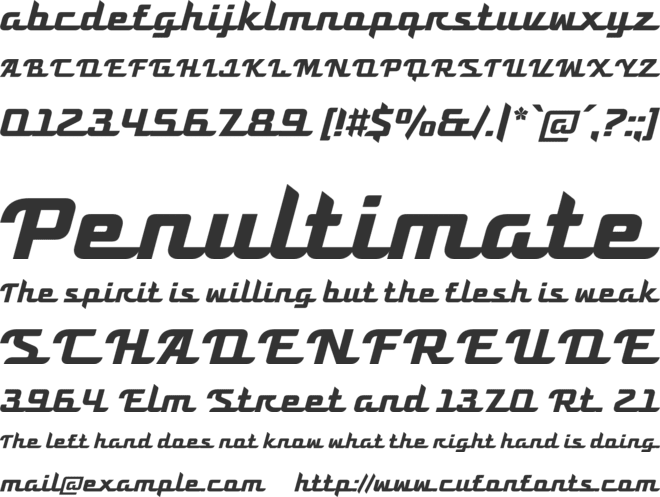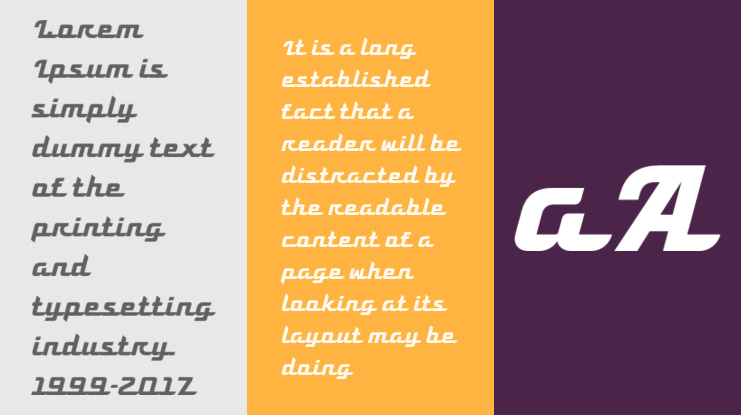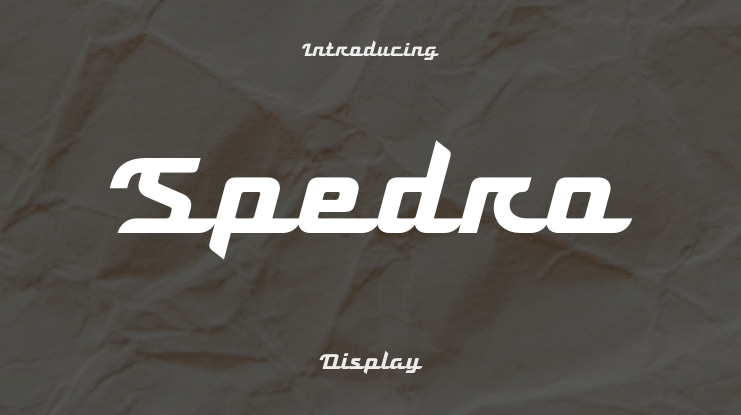
Spedro Font
Spedro is a sporty script font, sharp and bold, designed with a dynamic and energetic aesthetic to bring speed and vitality to your projects.